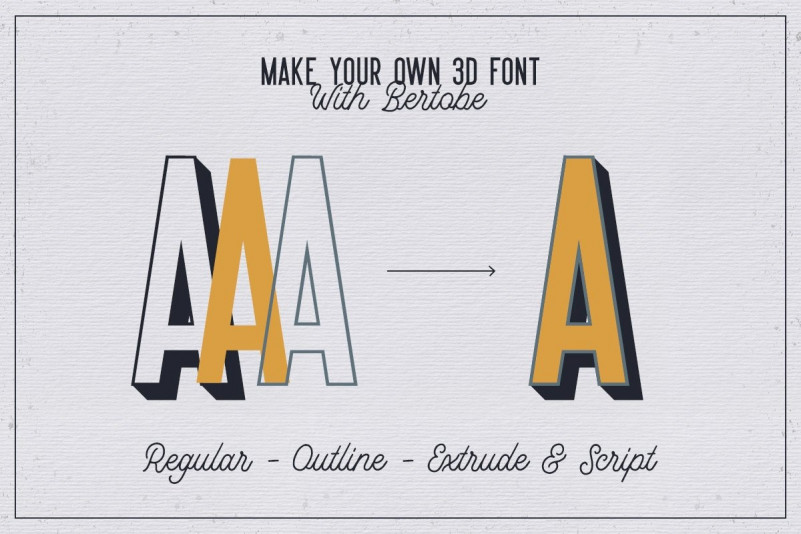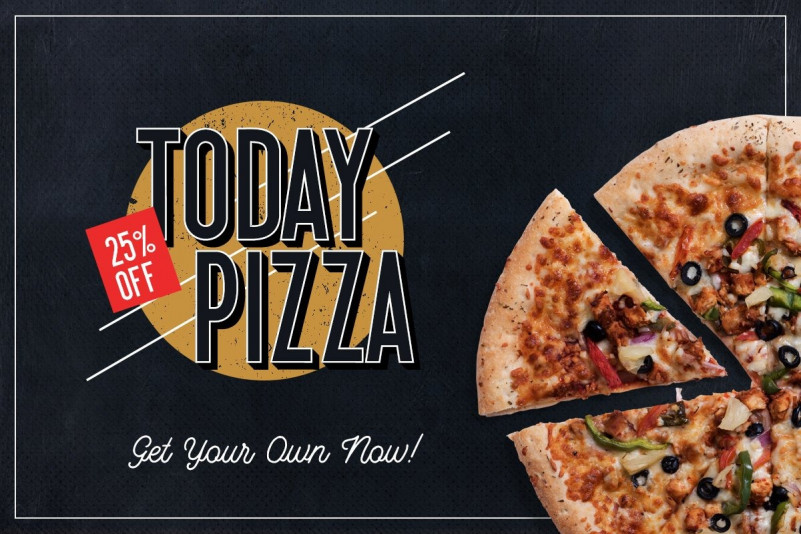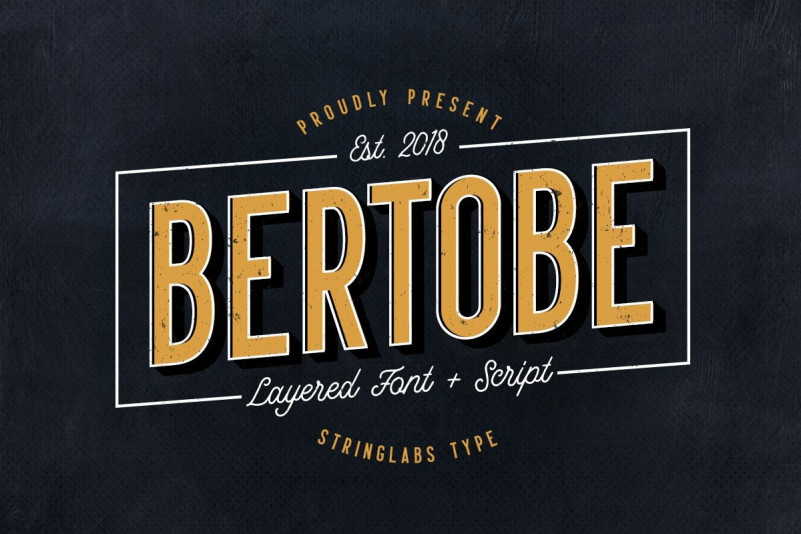
Bertobe Font
Bertobe is layered font that contain Regular, Outline, and Extrude style. This font also comes with simple Monoline Script that will compliment each other!